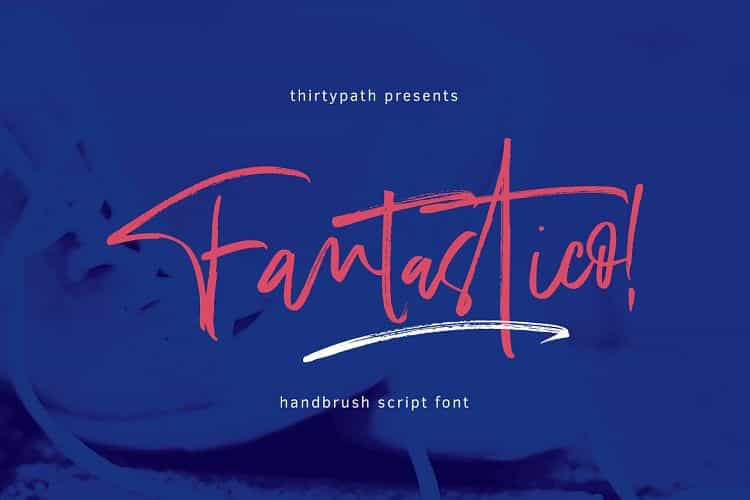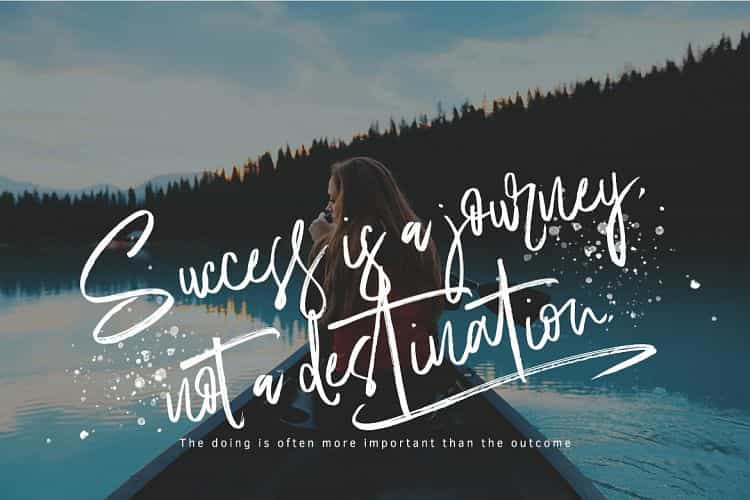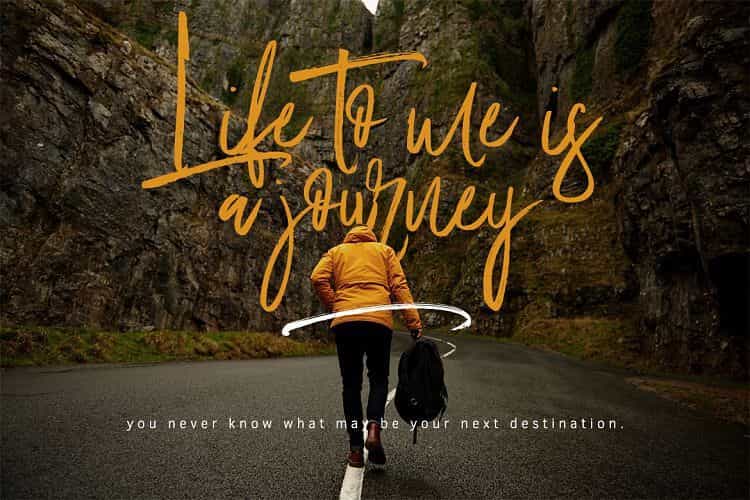
Introducing Fantastico Font. I hope you are into this font. Fantastico Handbrush Font!It is a hand brush product with some additional features. The way the handwriting is and its irregular but still elegant style will make you want to use this font.